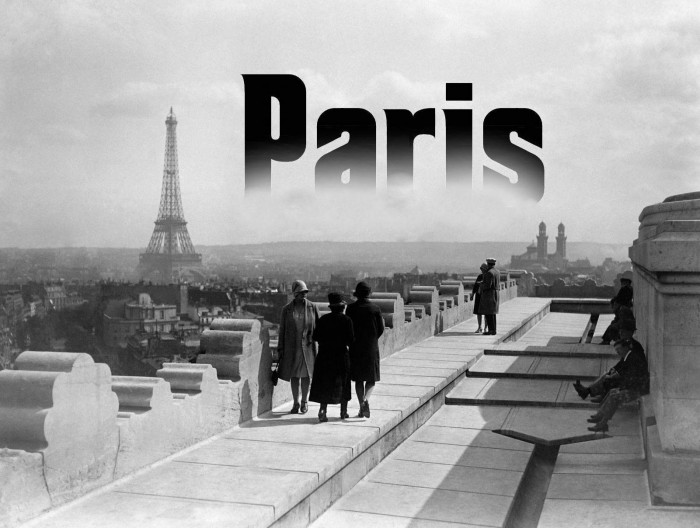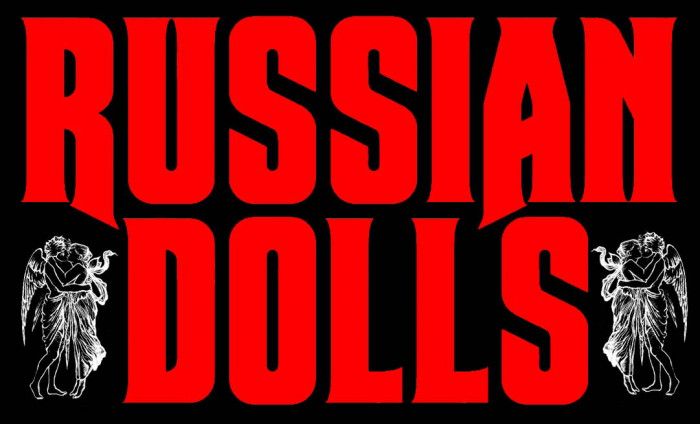
Paris, Berlin, Moscow in the 1920s... Art Deco, Bauhaus, Konstruktivizm... Effervescent people! This font is for Sandrine, the woman with white hat in the picture, and for all the people who together built the world. See also ztefan and zergei.
Beautiful font and what an excellent sample with those letters rising from the clouds.
heh kinda reminds me of my own font Masoneer
@SonicFontsHD: Thanks. I remembered the pict you posted with your Masoneer font and found it interesting to try another point of view for a classic font like Linotype's Macbeth, after seeing Beate's inspiring work for this comp.
Congratulations on the TP. A strong type, very nice samples - especially I like the view over Paris ; )